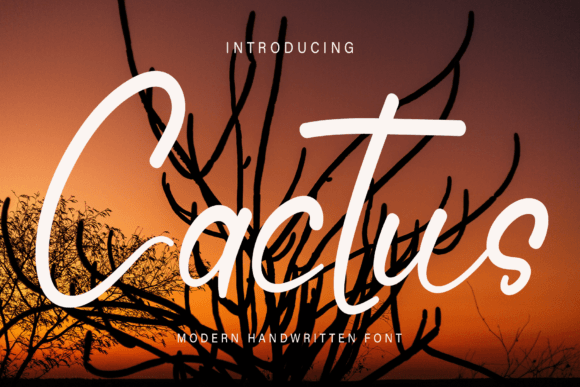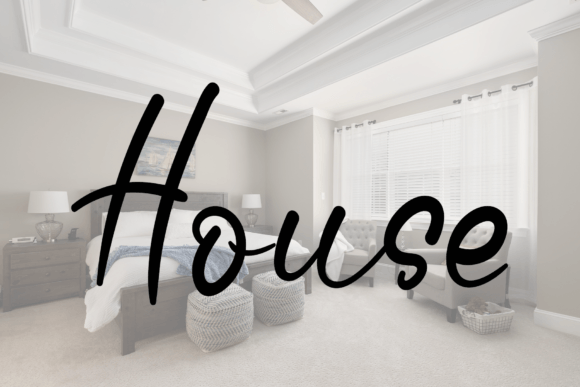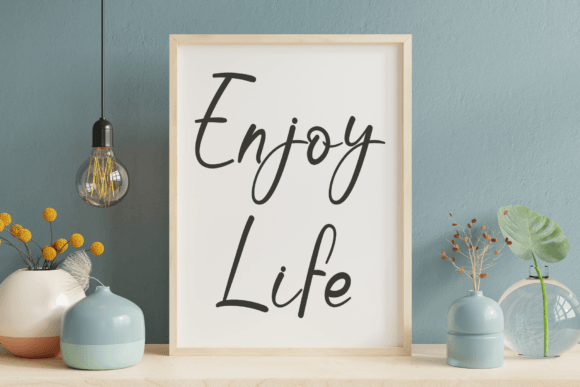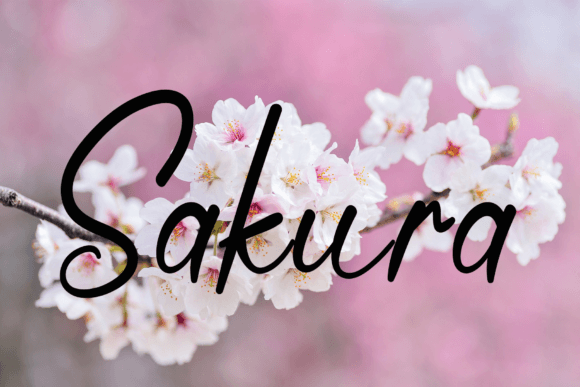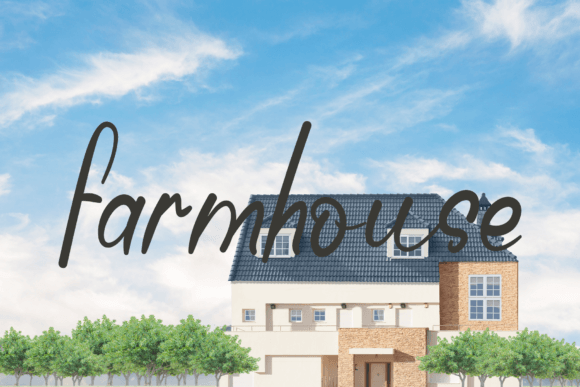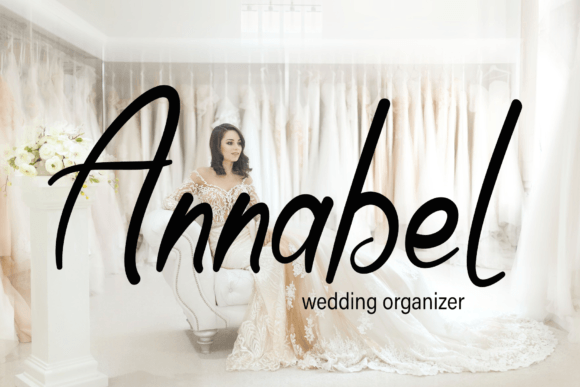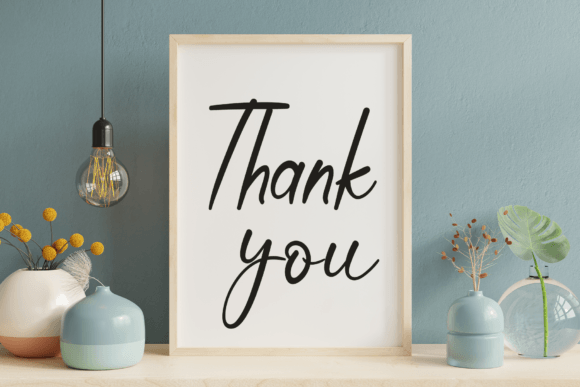
Add a neat and casual touch with the Cactus font. This handwritten script is perfect for a wide range of creative projects. From greeting cards to headlines, it adds a simple and natural feel to your designs.
The Cactus font is highly versatile. You can use it for invitations, branding, social media posts, posters, and more. Its clean style brings warmth and approachability to your work.
Each character is crafted with smooth and flowing strokes. This creates a polished yet relaxed look. The font balances readability with artistic charm, making it ideal for logos, quotes, headlines, and decorative text.
Despite its casual style, the Cactus font remains readable at various sizes. Whether used for bold titles or subtle accents, it adapts perfectly. Its flexibility makes it suitable for many creative applications.
Using this font will help your projects stand out. It adds a friendly and natural vibe. If you want your designs to look simple yet polished, the Cactus font is an excellent choice.
In summary, the Cactusfont fits many design needs. From greeting cards to branding and social media, it brings charm and simplicity. Download it today and create beautiful, versatile designs with a neat handwritten script.